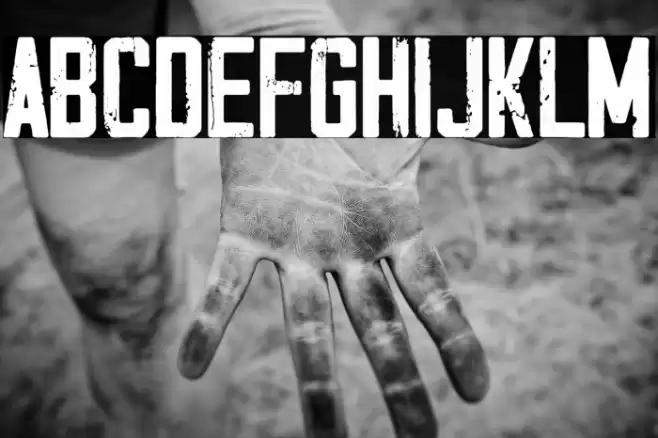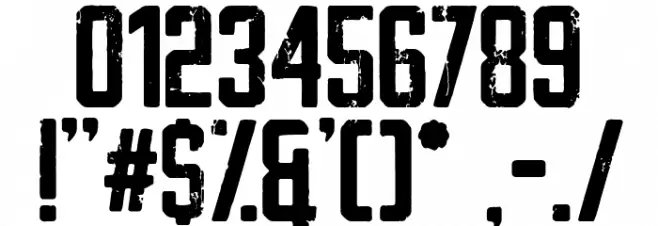
Retro Team Font
Retro Team Description
This font features a bold, distressed style with a vintage, grunge aesthetic. The uppercase letters are uniform in height, with a blocky, geometric structure that gives a strong, impactful presence. The distressed texture adds a rugged, worn look, reminiscent of old signage or typewriter fonts. The numerals and special characters maintain this cohesive style, ensuring versatility across different uses. The font's boldness and texture make it ideal for projects that require a strong visual impact, such as posters, album covers, or branding materials that aim to convey a sense of nostalgia or edginess.
A bold, distressed font with a vintage, grunge aesthetic from Uncategorized fonts.
- Proposed Projects: Ideal for posters, album covers, branding, and any project needing a vintage or edgy look.
- Overall Style: Vintage